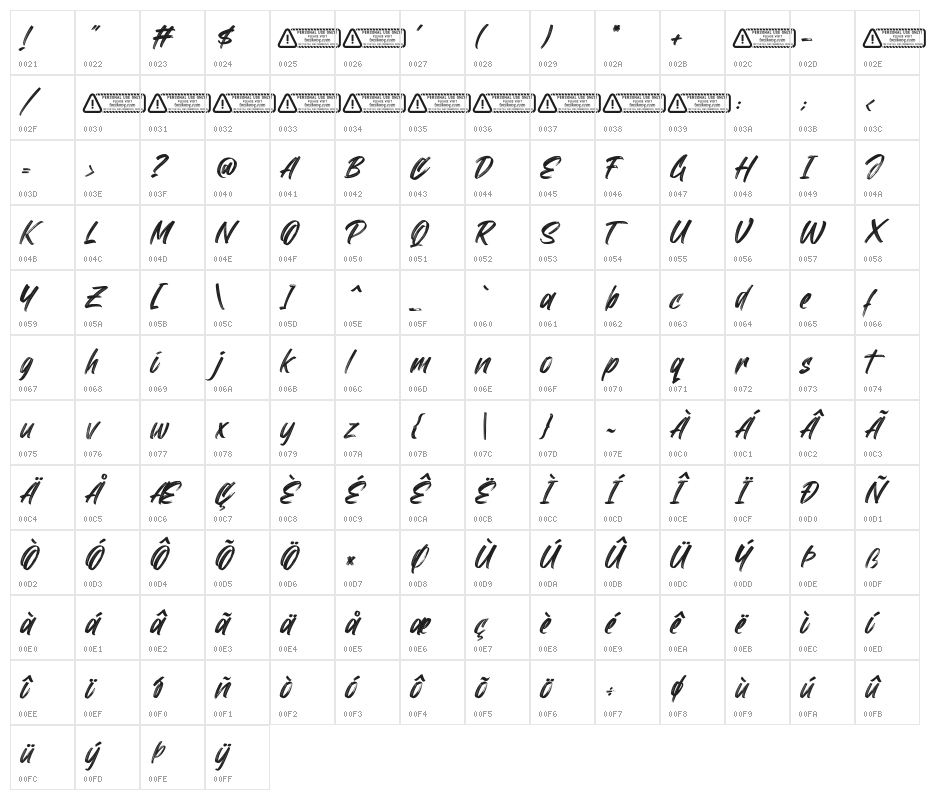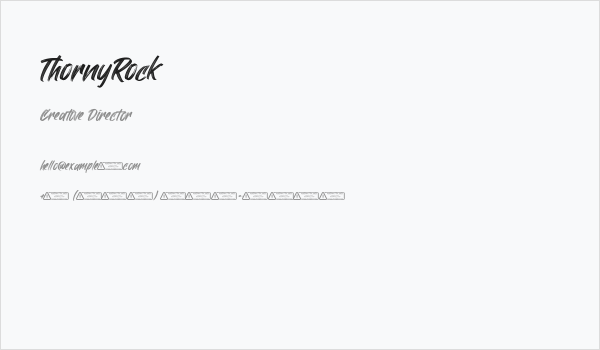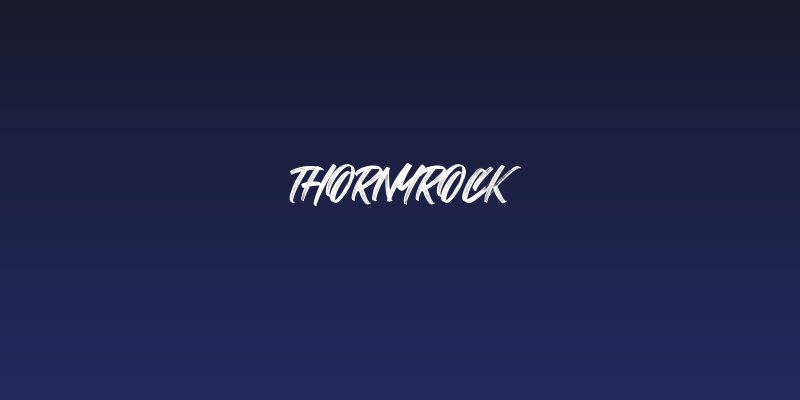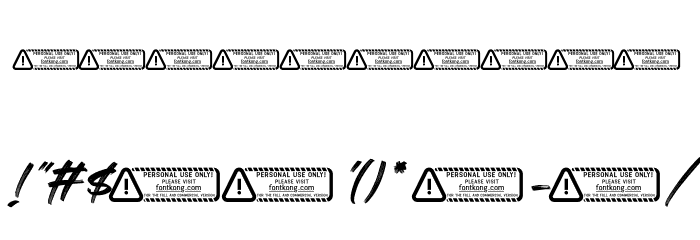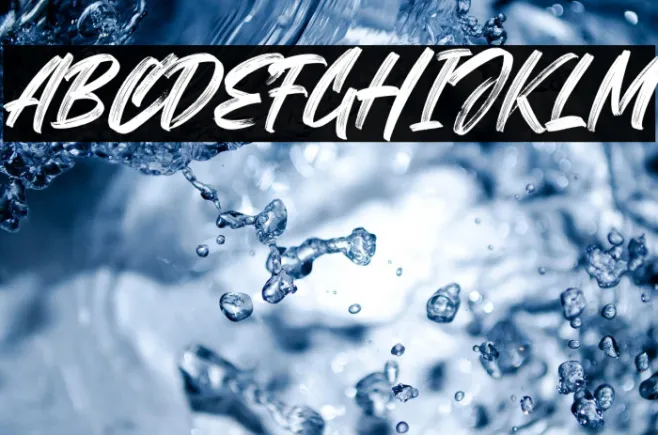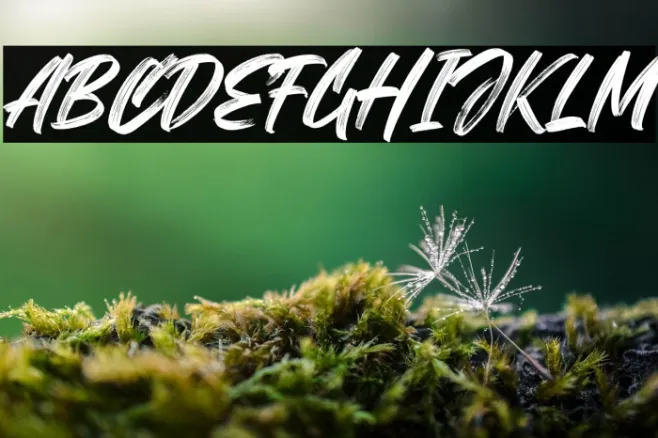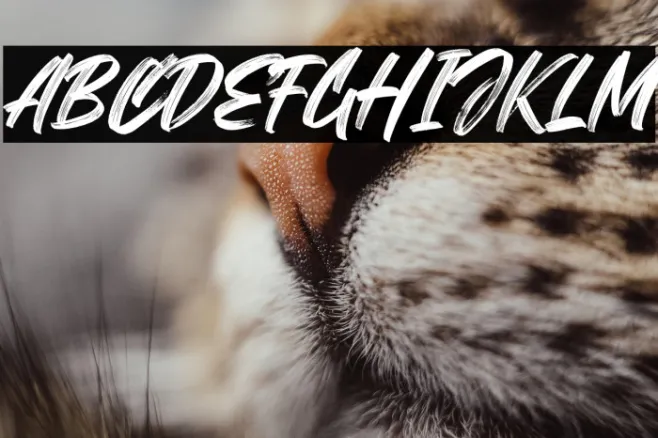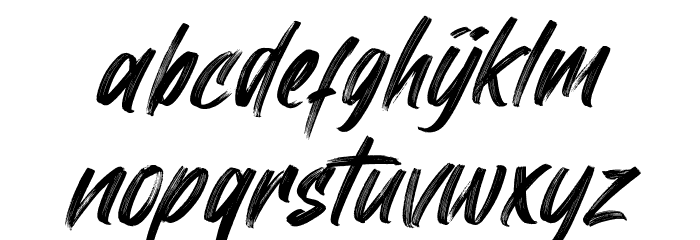
ThornyRock Font
ThornyRock Description
This font features a bold and dynamic brush script style, characterized by its energetic and expressive strokes. The letters are crafted with a sense of movement and fluidity, giving it a hand-painted appearance. The uppercase and lowercase letters maintain a consistent style, with slightly exaggerated curves and angles that add to its artistic flair. The numbers and special characters follow the same design principles, ensuring a cohesive look across all glyphs. This font is ideal for projects that require a touch of creativity and boldness, making it suitable for eye-catching headlines and artistic designs.
| Proposed Projects | Ideal for creative projects such as posters, logos, branding, and artistic headlines. |